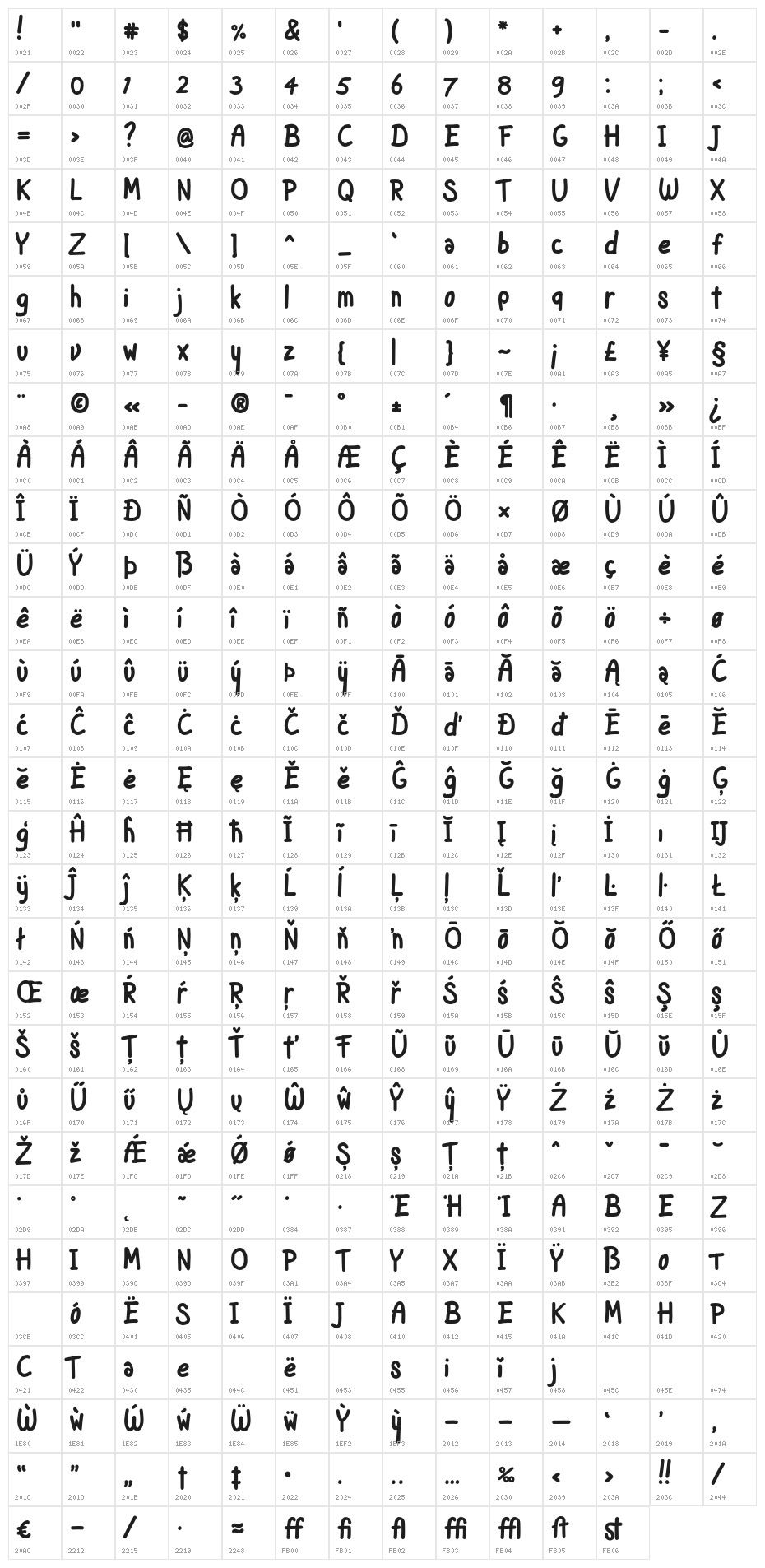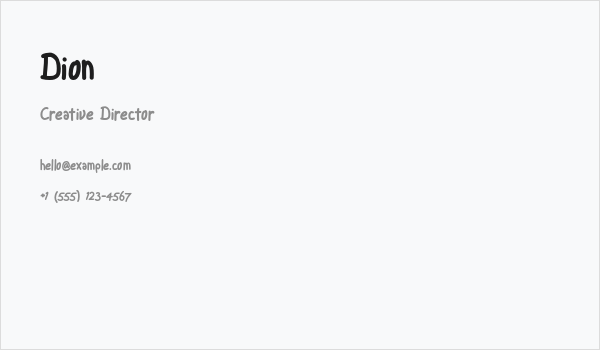
Dion Font
Dion Description
This playful and bold font features a handwritten style with rounded edges and a casual, friendly appearance. The characters are slightly irregular, adding a whimsical touch that makes it stand out. The uppercase and lowercase letters maintain a consistent flow, while the numbers and special characters complement the overall design. This font exudes a sense of fun and creativity, making it ideal for projects that require a personal and approachable feel. Its unique style is both eye-catching and versatile, suitable for a variety of applications.
| Proposed Projects | Ideal for children's books, greeting cards, playful branding, and creative posters. |